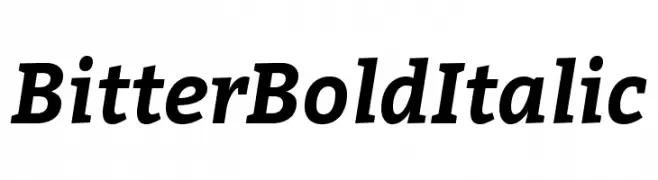
A bold, italic font with high contrast and modern appeal.
A bold and italic font with strong, dynamic strokes and a slight slant.
A bold, italic serif font with a modern yet classic appeal.
An elegant italic serif font with a classic yet contemporary style.
A modern serif font with elegant curves and balanced stroke contrast.
A bold, modern serif font with strong, confident letterforms.
A bold serif typeface with high contrast and classic appeal.
A bold, italic serif font with strong strokes and a dynamic, classic appearance.